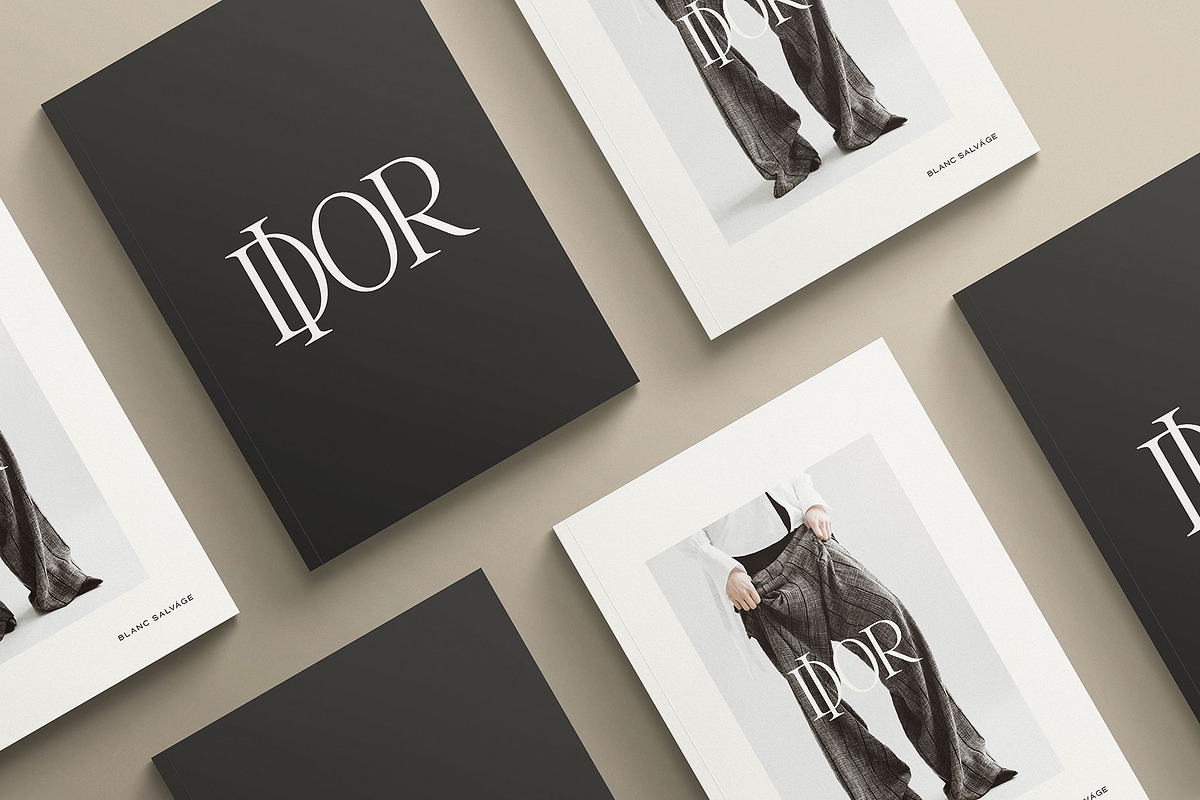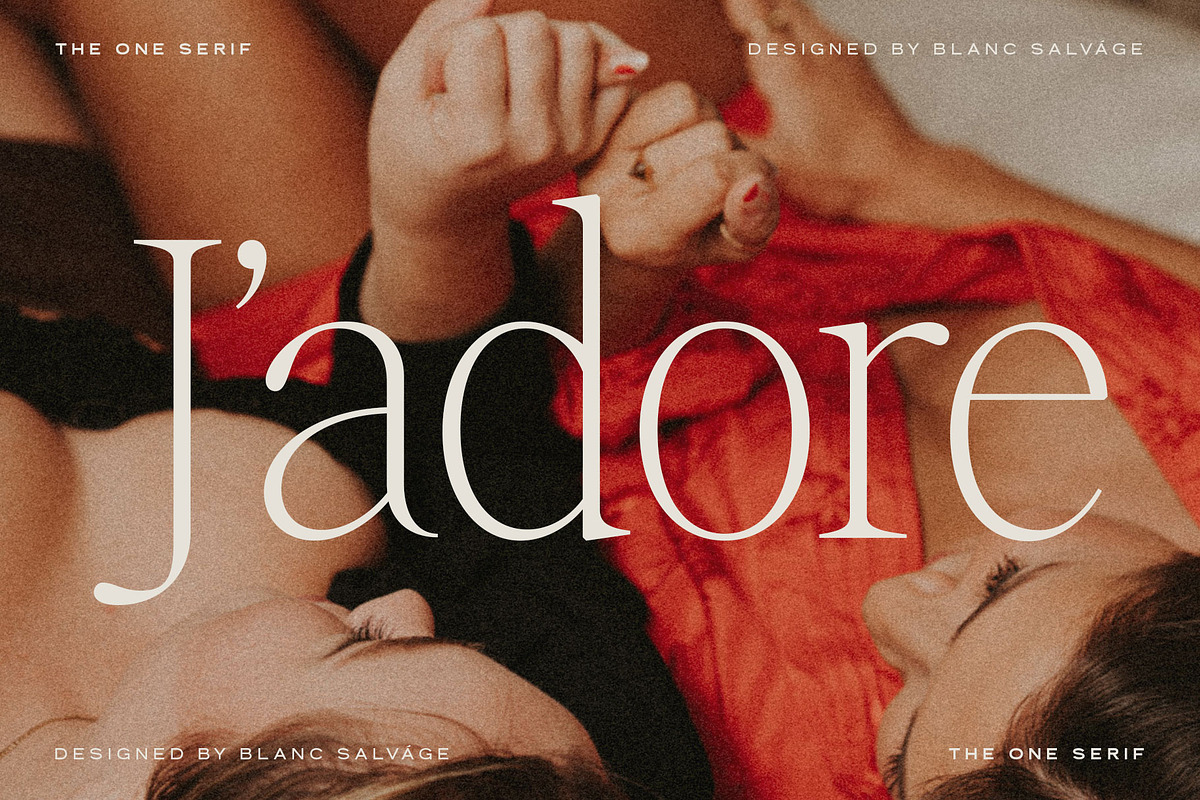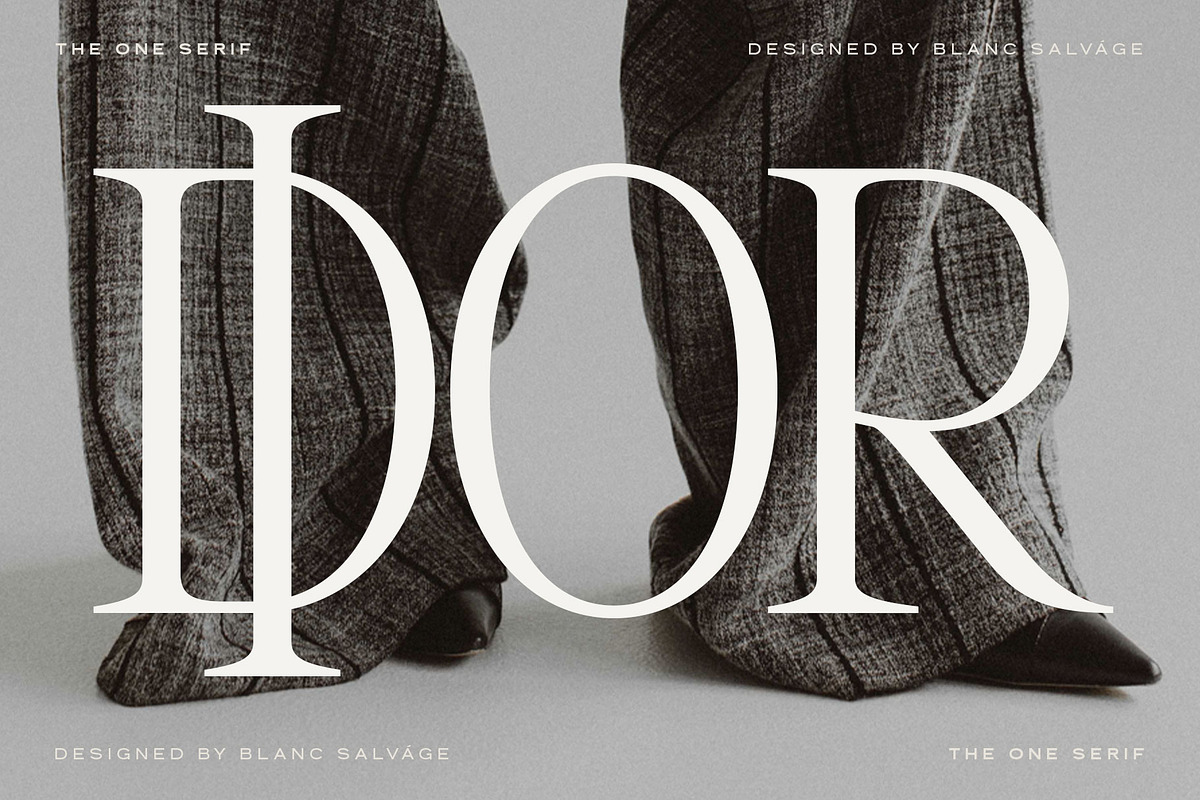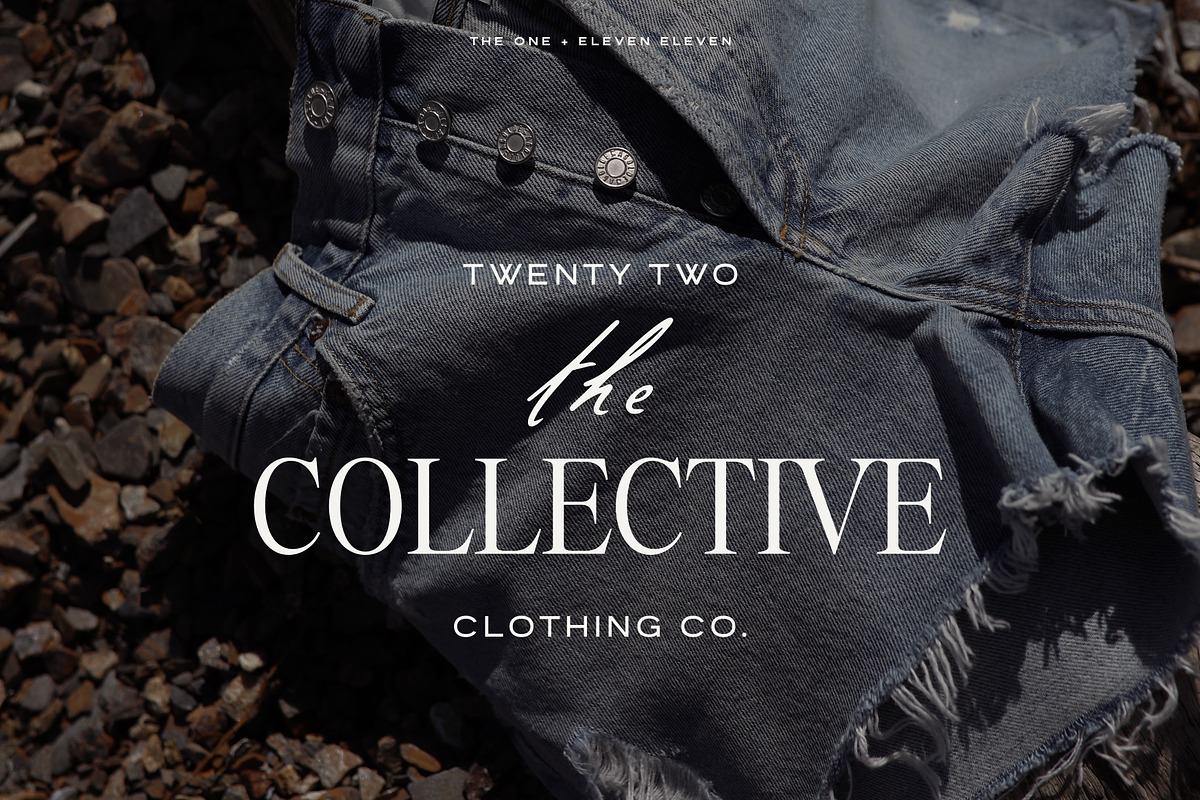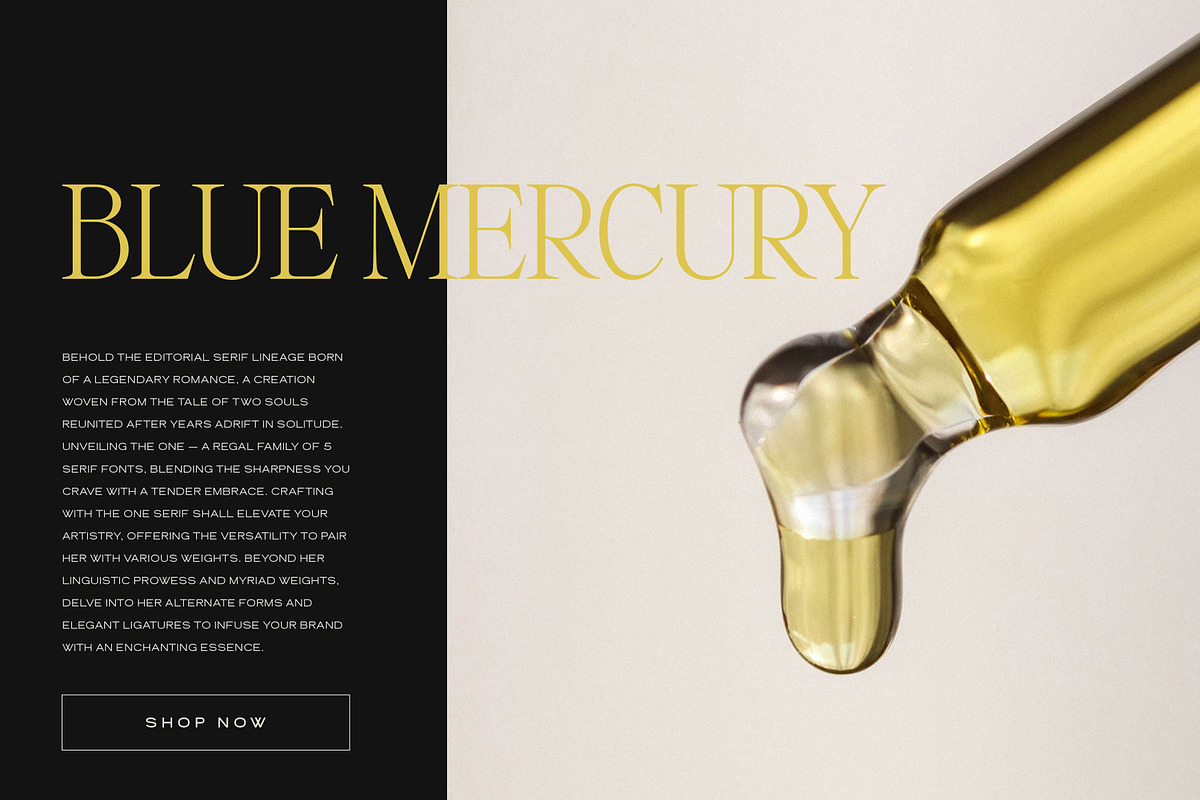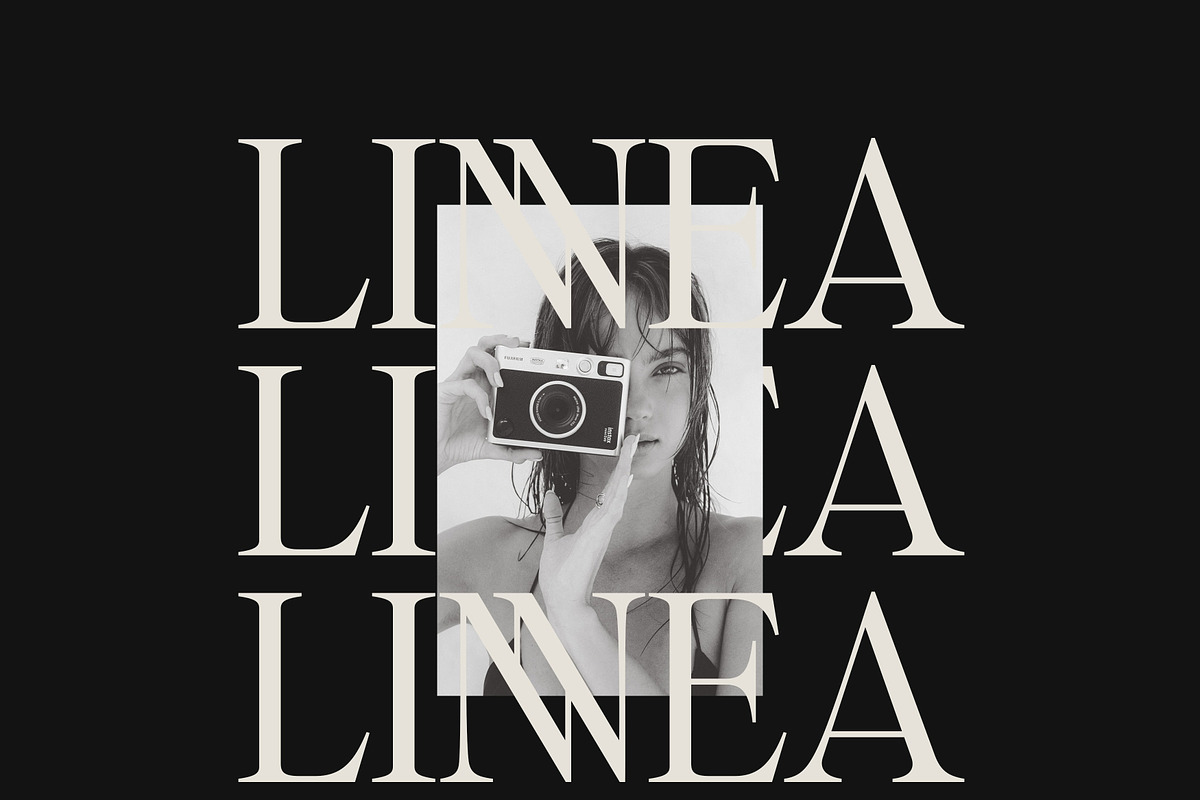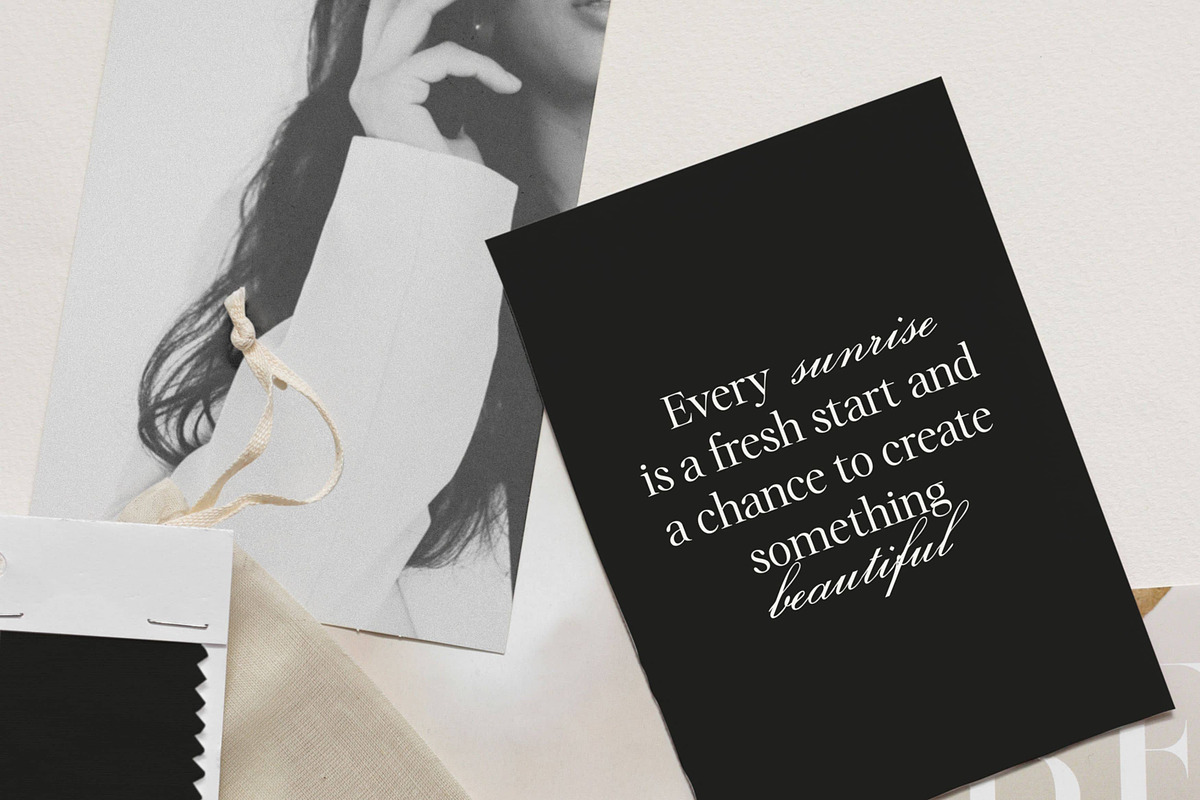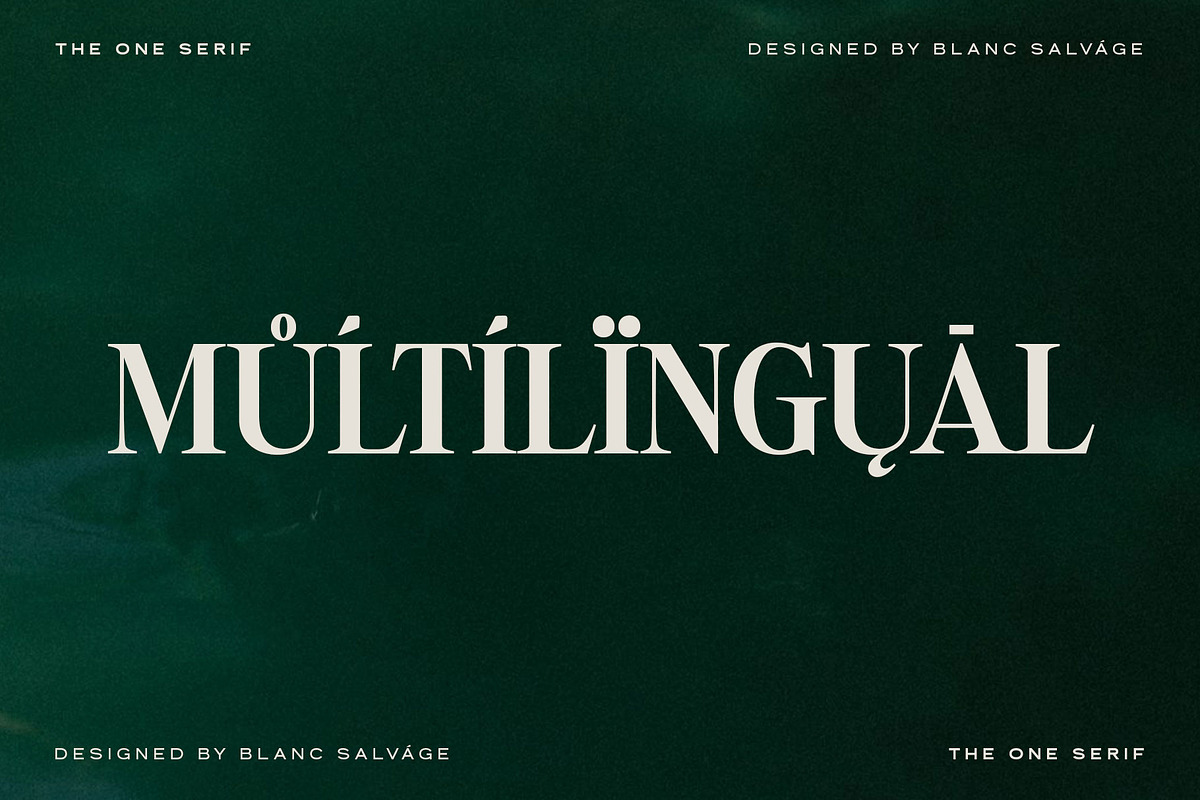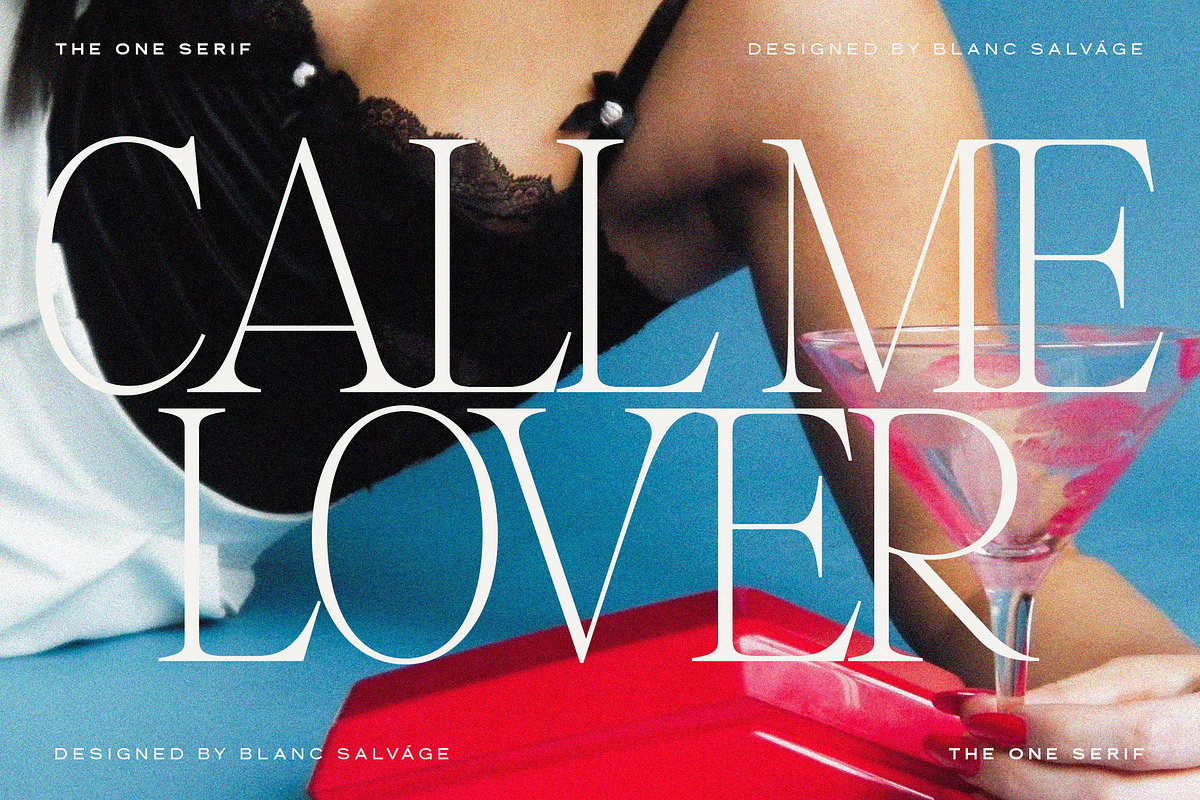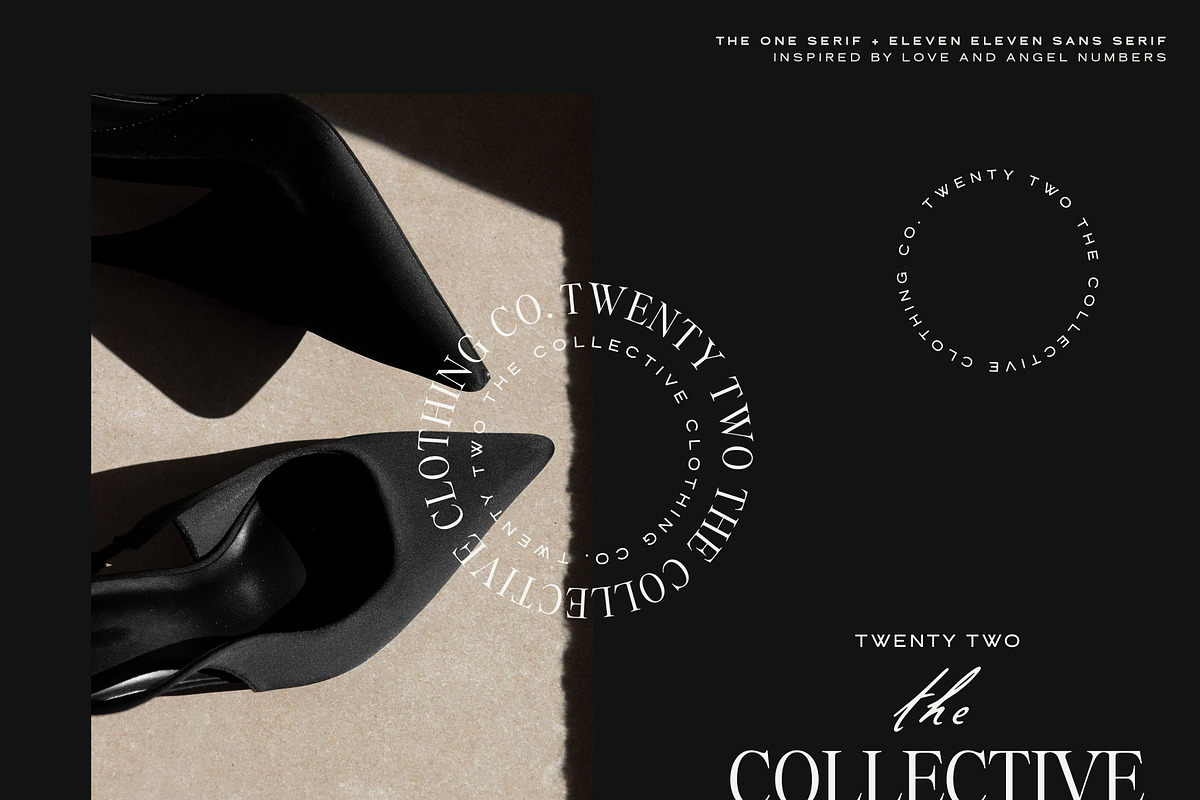
The One Editorial Serif
Meet the editorial serif family inspired by a true love story, a design based entirely on two people who spent years apart but found each other’s arms again.
Introducing The One — a 5-weight serif font family with the edginess you demand but the soft side you adore.
Creating products with The One typeface will enhance your design and give you the flexibility to use her as a font pairing with multiple weights. Aside from her extended language and multi-weights, you can customize your brand designs with her alternates and ligatures for that extra special touch.
Extra Light - Bold (uppercase + lowercase)
Numbers and punctuation
Foreign language support